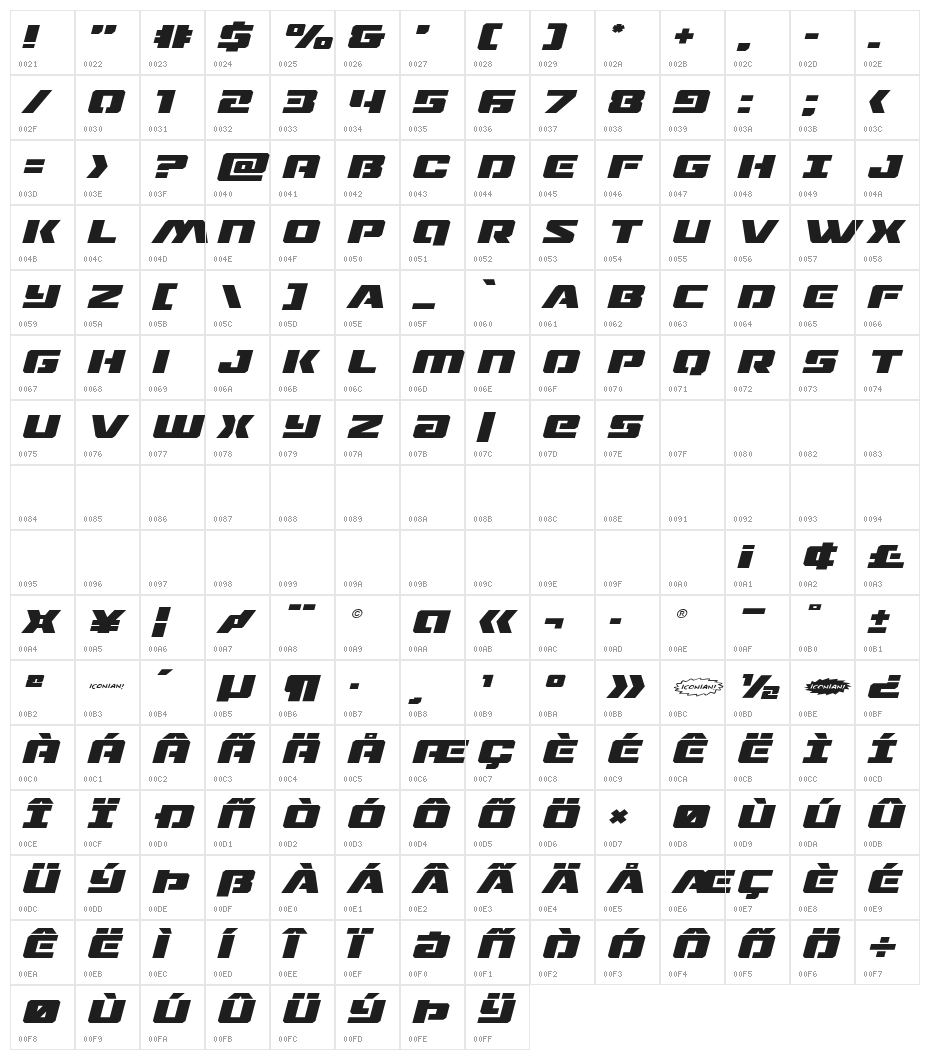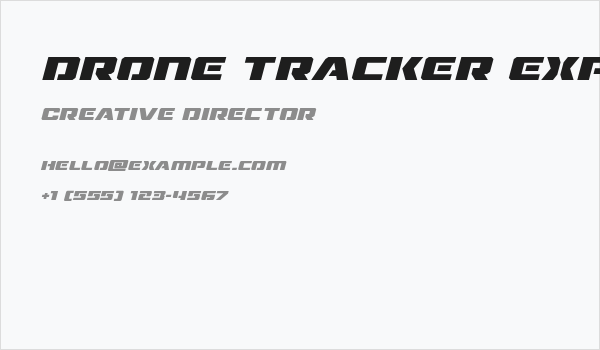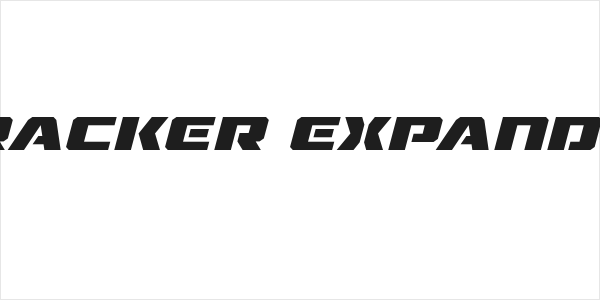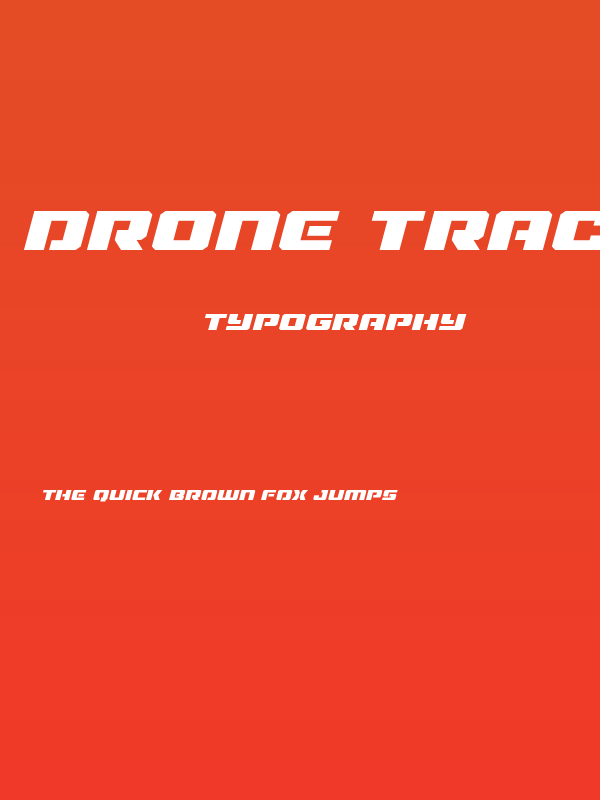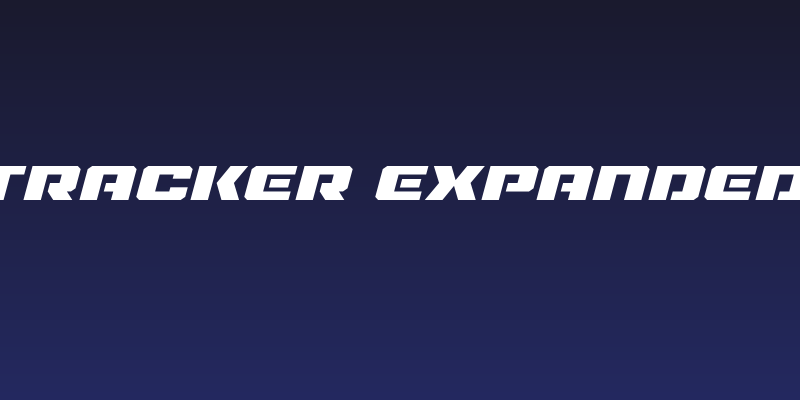
Drone Tracker Expanded Italic Font
Drone Tracker Expanded Italic Description
This font features a bold, futuristic design with an expanded width and italicized slant, giving it a dynamic and forward-moving appearance. The characters are constructed with sharp angles and geometric shapes, creating a sense of speed and modernity. The uppercase and lowercase letters maintain a consistent style, while the numbers and special characters complement the overall aesthetic. The bold weight and expanded width make it highly visible and impactful, suitable for projects that require a strong visual presence.
| Proposed Projects | Ideal for technology branding, sci-fi movie posters, video game titles, and sports team logos. |